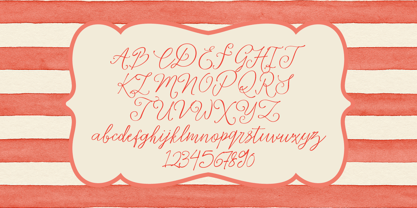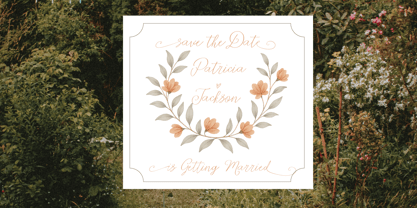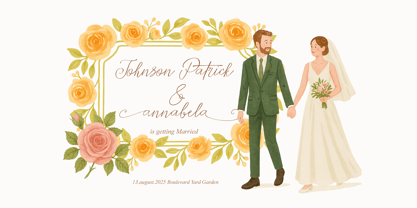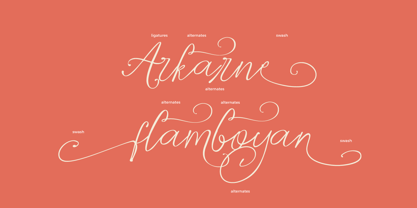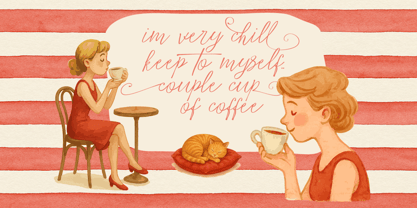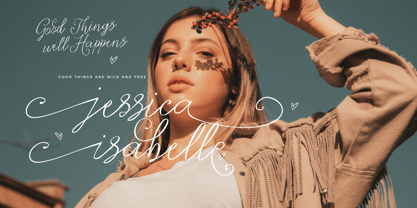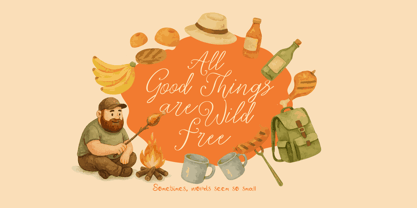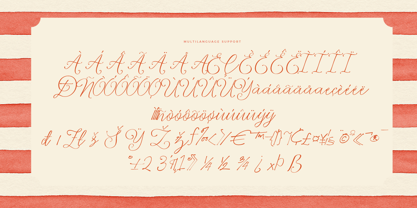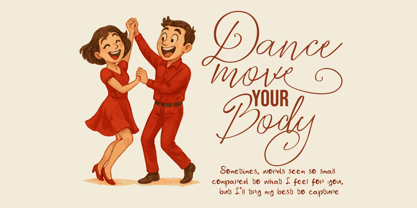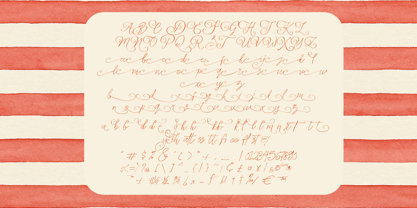
Fd Emeta
The Fd Emeta Font Family was designed by Ramandhani Nugraha and published by Fortunes Co. Fd Emeta contains 1 styles. More about this family
Amora is a handmade handwritten script font designed with a soft, flowing, and elegant touch. Its natural strokes bring a sense of romance and warmth, making it the perfect choice for designs that need a personal and artistic feel.
This versatile font works beautifully for:
Branding & logos - Wedding invitations & stationery - Inspirational quotes & posters - Social media & blog graphics - Product packaging & handmade labels
With graceful curves and balanced letterforms, Amora adds a timeless charm and cozy atmosphere to any creative project. Whether paired with a modern serif or a clean sans-serif, Amora will elevate your design with style and personality.
Features:
• Elegant handwritten script style
• Uppercase & lowercase characters
• Multilingual support
• Alternates
• Ligatures
• Perfect for both digital and print use
If you’re looking for a romantic, charming, and versatile script font to enhance your creative work, Emeta is the ideal choice.